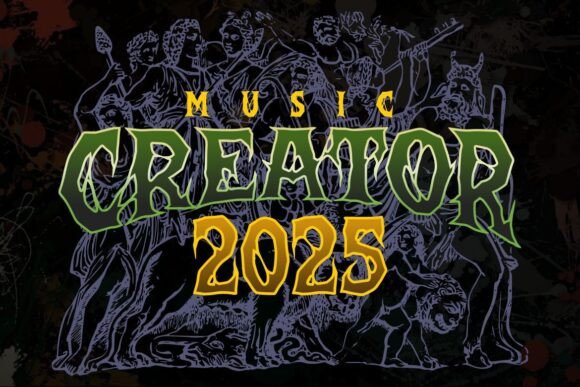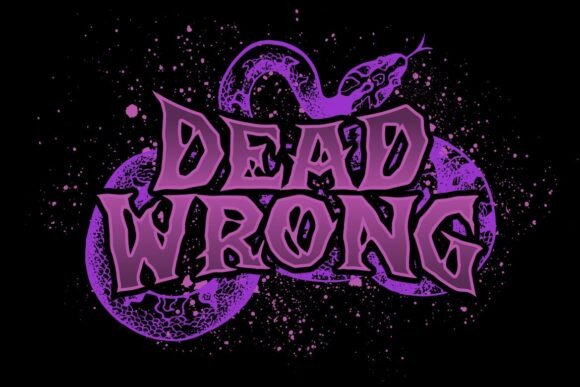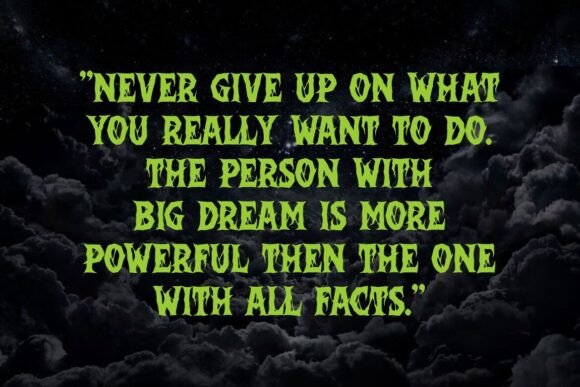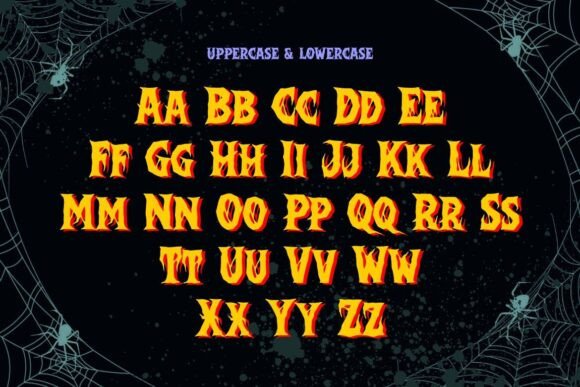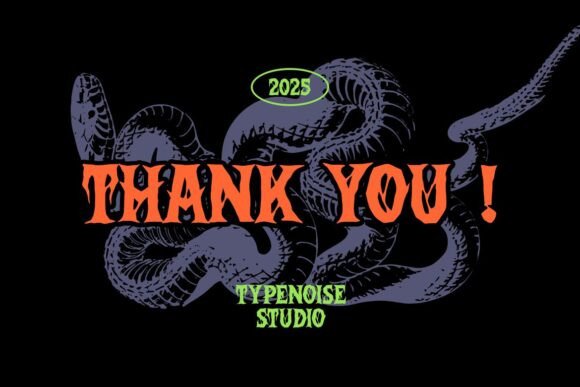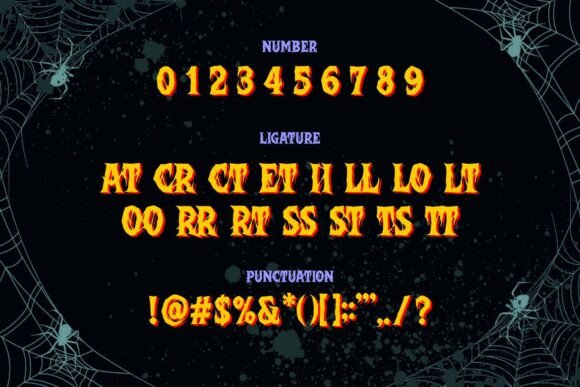
Unleash the Fury: Introducing Barracus Font, the Ultimate Death Metal Typeface
Are you a designer or crafter looking for a font that embodies the aggressive and powerful spirit of death metal music? Look no further than Barracus Font, a bold and edgy typeface designed specifically for professional projects with a metal music theme. In this article, we’ll dive into the features and benefits of Barracus Font, and explore how it can elevate your designs to new heights.
What is Barracus Font?
Barracus Font is a death metal font that exudes a sharp and rock touch in every letter. This font is carefully crafted to meet the needs of designers and crafters working on projects related to metal music, such as logotype bands, watermarks, album covers, posters, t-shirts, promotions, product packaging, and more.
Key Features of Barracus Font
- Full set of uppercase and lowercase letters: Barracus Font includes a comprehensive set of letters, ensuring that you have all the characters you need to create stunning designs.
- Numerals and punctuation: In addition to letters, Barracus Font also includes numerals and punctuation marks, making it a versatile font for a wide range of applications.
- Alternative characters: To add more variety to your designs, Barracus Font provides alternative characters, allowing you to experiment with different styles and aesthetics.
Who is Barracus Font for?
Barracus Font is perfect for:
- Graphic designers: Working on projects related to metal music, such as album covers, posters, and merchandise.
- Crafters: Creating handmade products, like t-shirts, stickers, and other metal-themed items.
- Band promoters: Looking for a bold and eye-catching font to represent a metal band or music festival.
- Music enthusiasts: Who want to create their own metal-inspired designs, such as artwork, flyers, or social media graphics.
Benefits of Using Barracus Font
By choosing Barracus Font for your design projects, you’ll enjoy several benefits:
- Instant recognition: The bold and aggressive style of Barracus Font immediately conveys the theme of death metal music, making it perfect for projects that require a strong visual impact.
- Versatility: With a full set of letters, numerals, and punctuation, Barracus Font can be used for a wide range of applications, from logotypes to body text.
Tips for Using Barracus Font
To get the most out of Barracus Font, consider the following tips:
- Pair with bold colors: Combine Barracus Font with bold, vibrant colors to create a striking visual effect.
- Experiment with textures: Add depth and interest to your designs by applying textures or gradients to Barracus Font.
- Use for headlines and titles: Barracus Font is perfect for headlines and titles, where its bold and aggressive style can make a lasting impression.
Barracus Font is a powerful and versatile death metal font that’s perfect for designers and crafters working on projects related to metal music. With its sharp and rock touch, comprehensive character set, and alternative characters, Barracus Font is sure to elevate your designs to new heights. So why wait? Download Barracus Font today and unleash the fury of death metal on your designs!